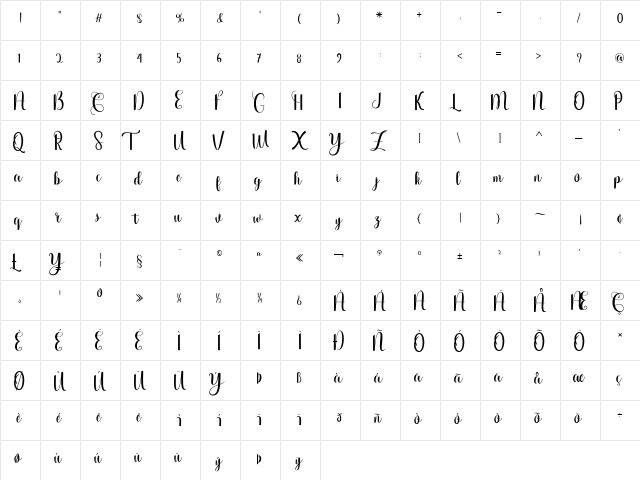
Anjaniya Regular
Design Context for Anjaniya Typeface
Anjaniya is a composed and adaptable typeface that performs quietly and consistently across a wide range of design contexts.